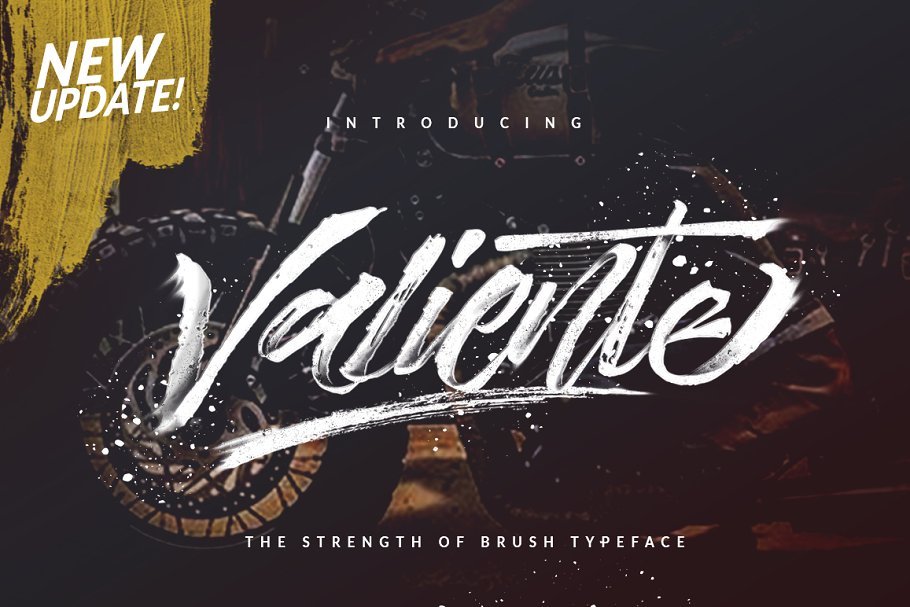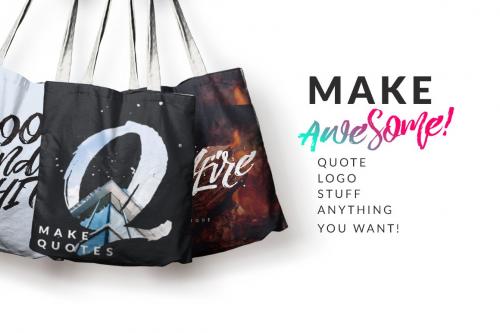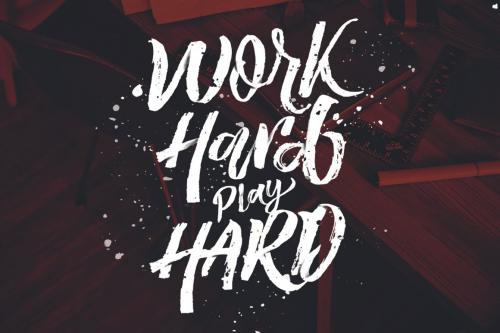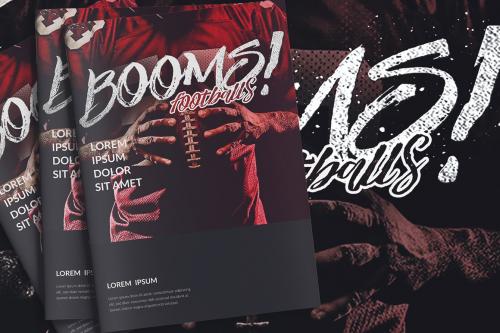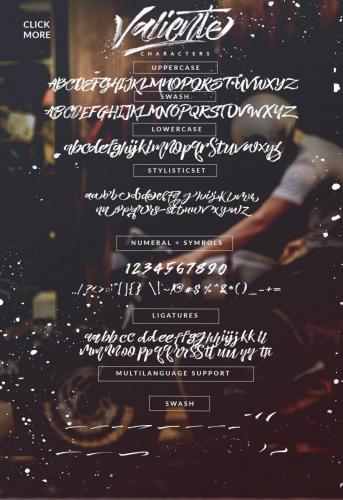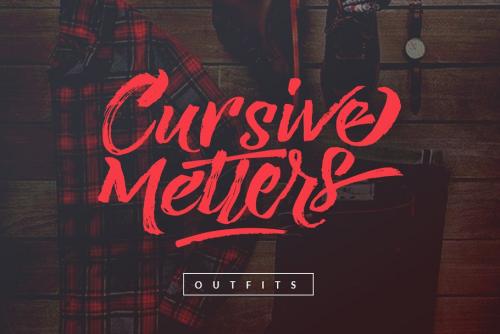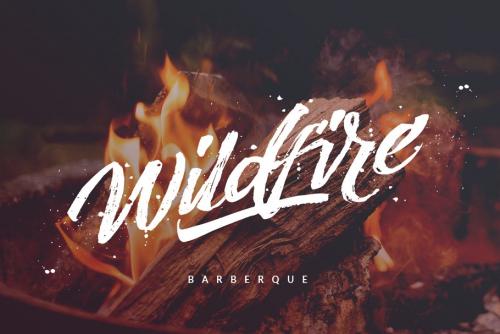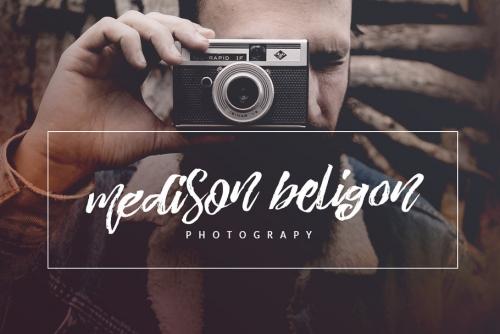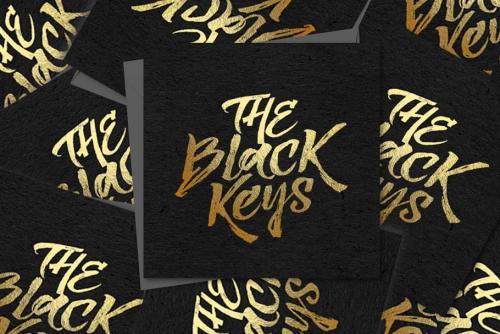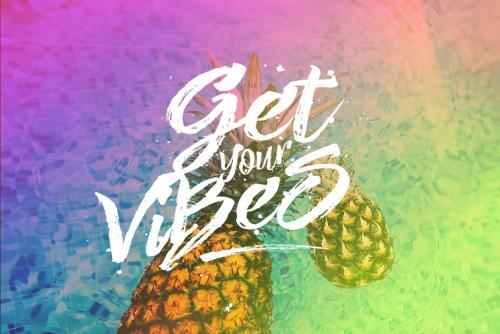
Valiente is a hand brushed typeface, with authentic dry brush imperfections, and a very bouncy baseline.
It has a perfectly paired complimentary marker font , and a super handy set of bonus Swash. Ideal for logos, handwritten quotes, product packaging, header, poster, merchandise, social media & greeting cards.